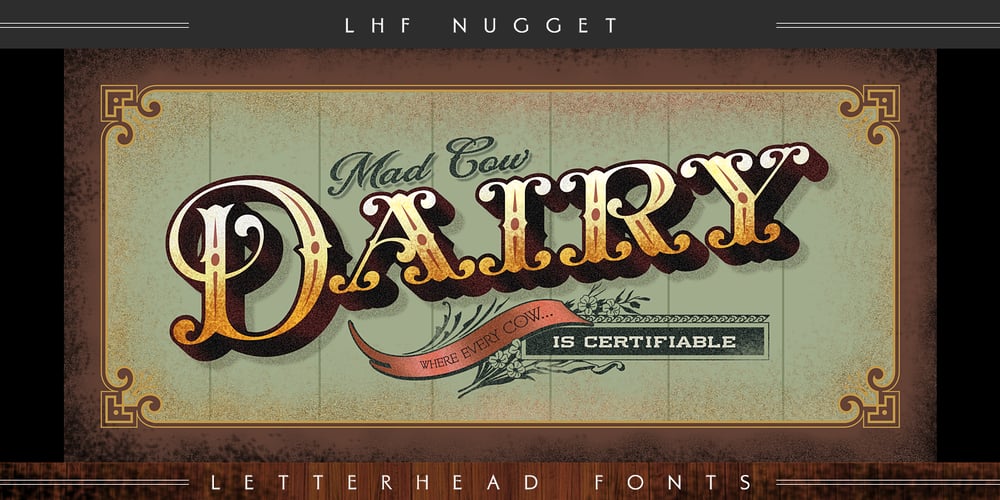
LHF Nugget Font Family was designed by John Studden and published by Letterhead Fonts. LHF Nugget contains 1 styles and family package options. Modeled after early 1900’s Tuscan style lettering & perfect for recreating old Show Cards and posters. Features decorative caps to compliment your designs. Set includes 3 fonts: Regular, Shadow & Inset.